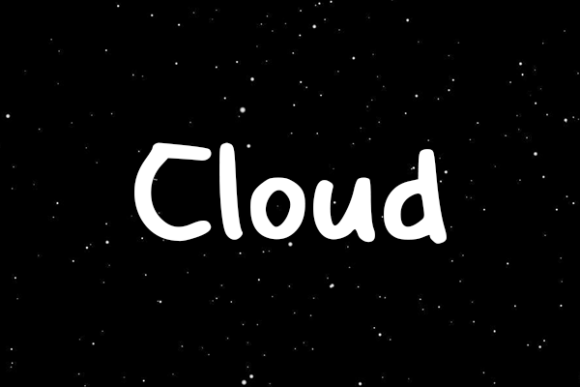
Elevate Your Designs with Cloud Font: The Ultimate Choice for Eye-Catching Logos, Branding, and Quotes
As a designer or crafter, you’re constantly on the lookout for innovative ways to make your creations stand out. One of the most effective ways to do this is by choosing the right font. And when it comes to creating eye-catching logos, branding, and quotes, Cloud Font is the best choice. With its unique and beautiful touch, every letter is designed to bring your design to life.
The Power of Typography in Design
Typography is a crucial element in design. It can make or break the visual appeal of your creation. The right font can evoke emotions, convey messages, and create a lasting impression. On the other hand, a poorly chosen font can make your design look amateurish and unprofessional. That’s why it’s essential to choose a font that’s not only aesthetically pleasing but also versatile and functional.
Introducing Cloud Font: The Ultimate Design Solution
Cloud Font is a game-changing font that’s specifically designed to help you create stunning logos, branding, and quotes. What sets it apart is its unique and beautiful touch, which is evident in every letter. The font’s elegant and modern design makes it perfect for a wide range of applications, from business cards and brochures to social media graphics and website headers.
Why Choose Cloud Font?
So, why should you choose Cloud Font over other fonts? Here are just a few reasons:
- Unique and Beautiful Touch: Every letter in Cloud Font has a distinctive and beautiful touch that will make your design stand out.
- Elegant and Modern Design: The font’s sleek and contemporary design makes it perfect for modern brands and designs.
- Versatile: Cloud Font is highly versatile and can be used for a wide range of applications, from logos and branding to quotes and social media graphics.
- Easy to Read: Despite its unique design, Cloud Font is easy to read, making it perfect for body text and headlines.
How to Use Cloud Font in Your Designs
Using Cloud Font in your designs is easy. Here are a few tips to get you started:
- Pair it with Other Fonts: Cloud Font pairs well with other fonts, so feel free to experiment with different combinations to create a unique look.
- Experiment with Colors: Cloud Font looks great in a variety of colors, so don’t be afraid to try out different colors and gradients.
- Use it for Headlines and Titles: Cloud Font is perfect for headlines and titles, but you can also use it for body text and quotes.
Here are a few additional tips for designers and crafters who want to get the most out of Cloud Font:
- Keep it Simple: Don’t overcomplicate your design. Keep it simple and let Cloud Font do the talking.
- Play with Texture and Patterns: Cloud Font looks great with texture and patterns, so feel free to experiment with different effects.
- Make it Bold: Don’t be afraid to make your text bold and eye-catching. Cloud Font is designed to make a statement.
| Font Name | Cloud Font |
| Author | TelemlyCreations |
In conclusion, Cloud Font is the ultimate choice for designers and crafters who want to create eye-catching logos, branding, and quotes. With its unique and beautiful touch, every letter is designed to bring your design to life. Whether you’re a seasoned designer or just starting out, Cloud Font is a must-have in your font collection.